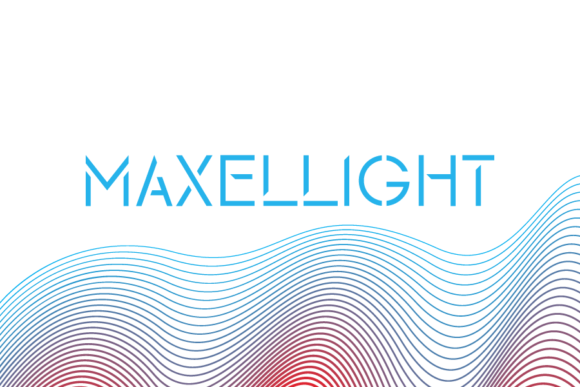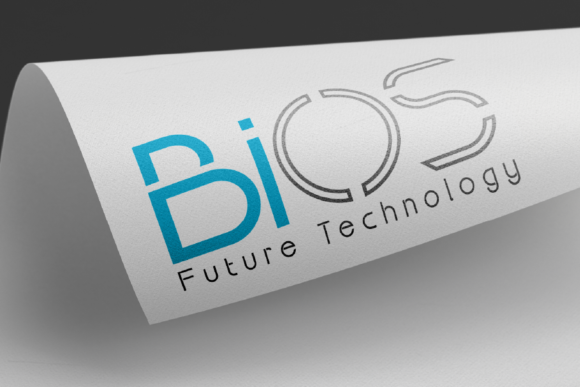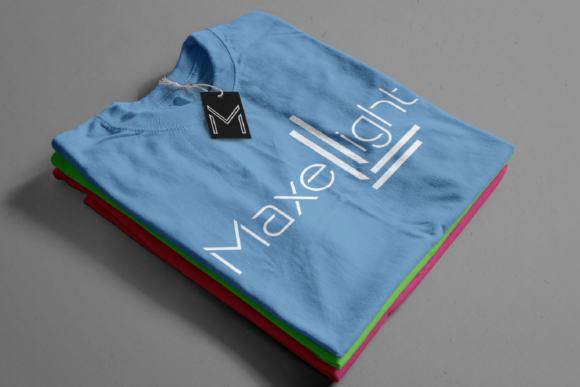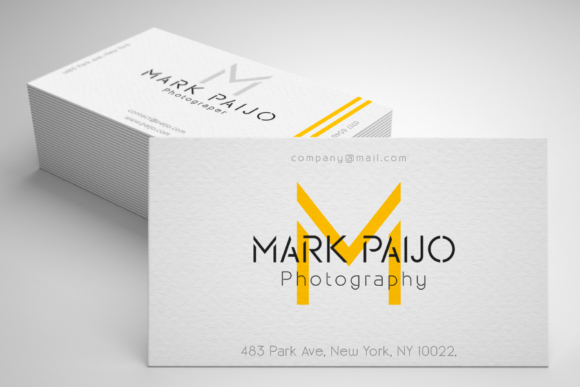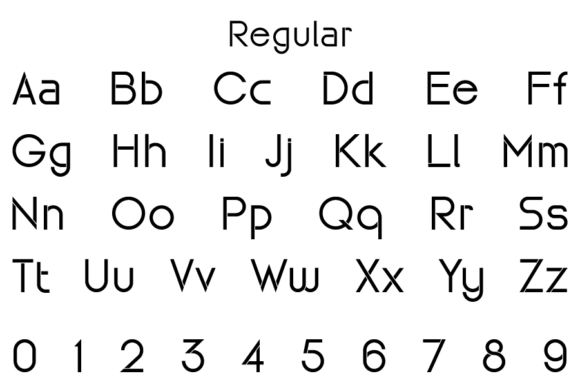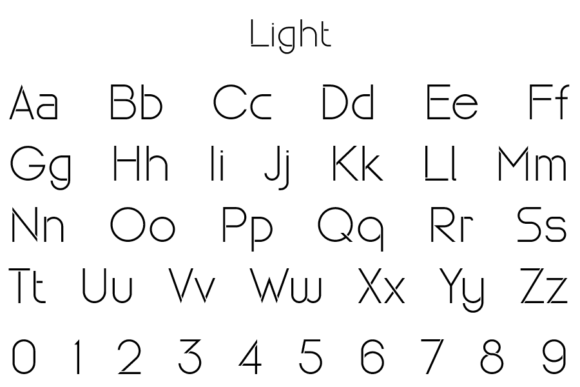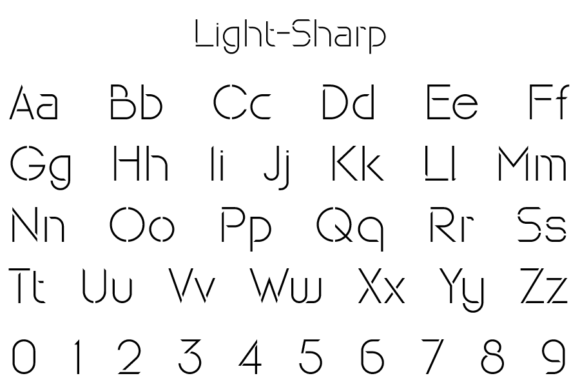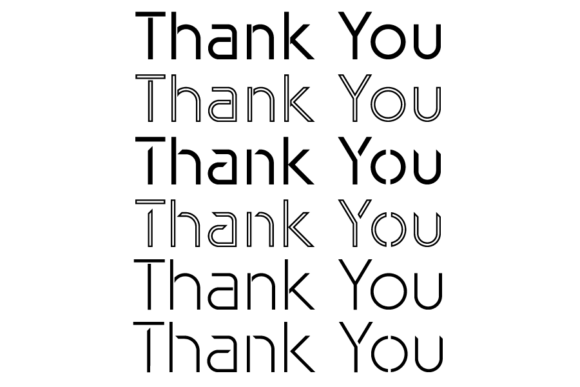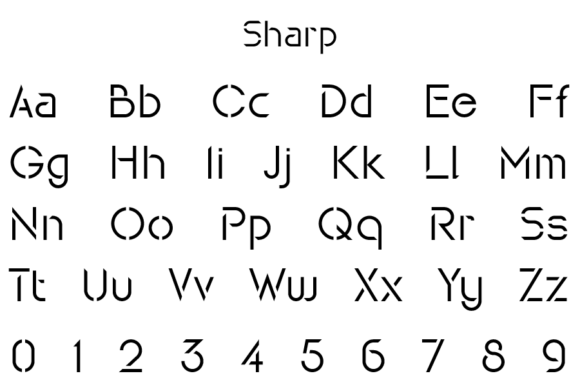
Maxellight Font
About Maxellight Font
Maxellight is a distinct, elegant sans serif that blends traditional influences into a contemporary aesthetic. Its well balanced Latin details contain distinctive contrasts. Use Maxellight to achieve an exquisite, yet subtle look and maximum versatility.